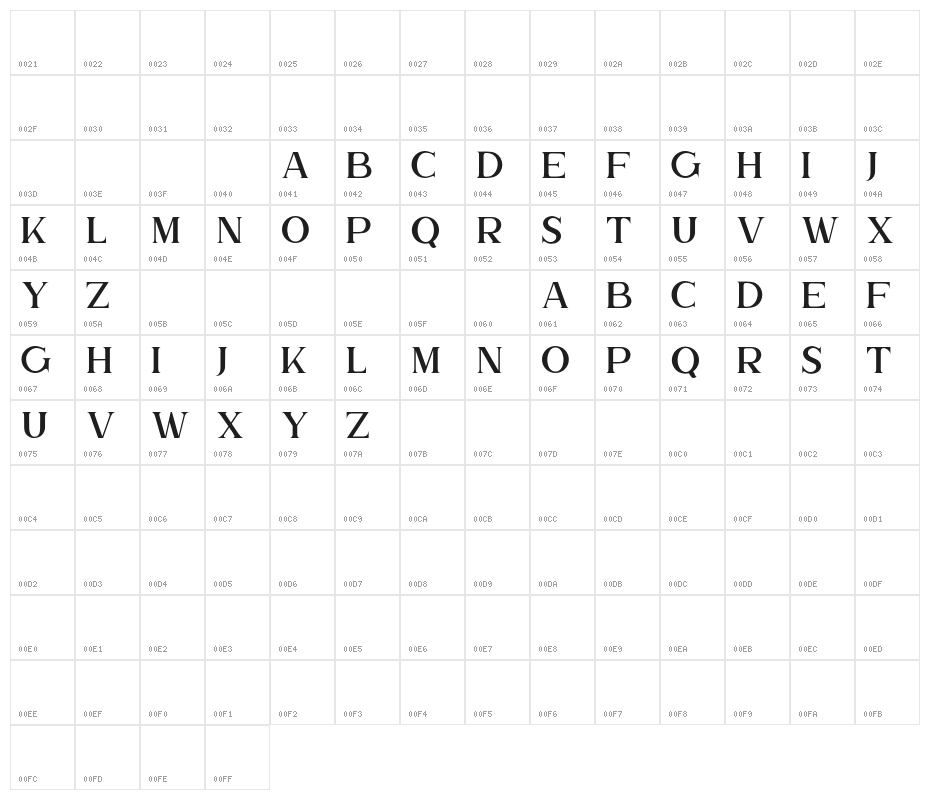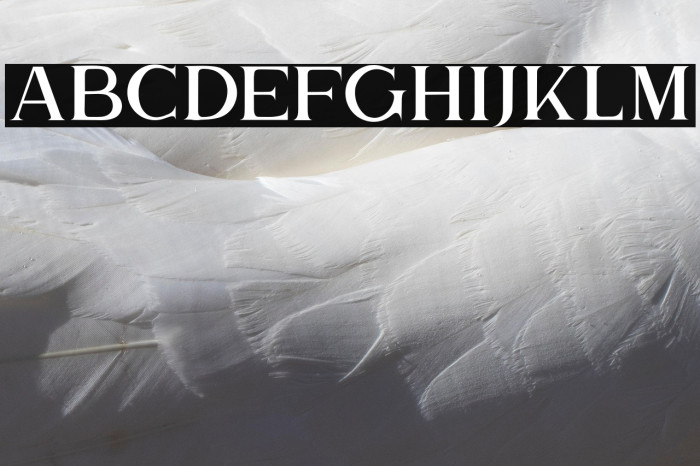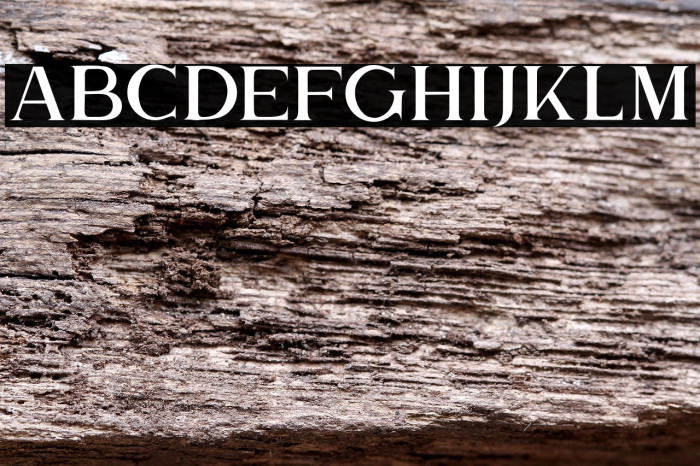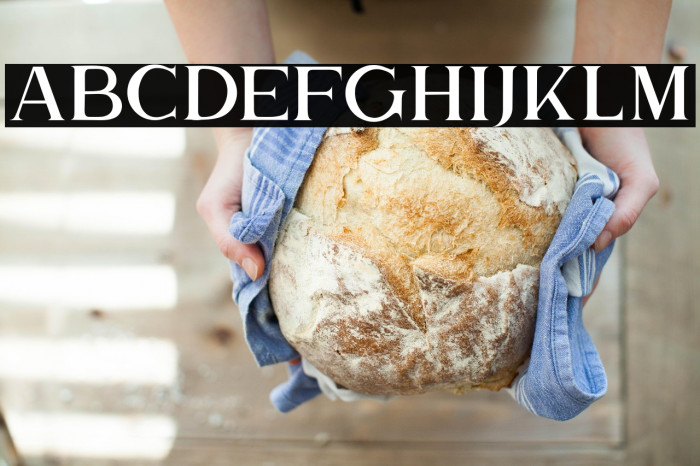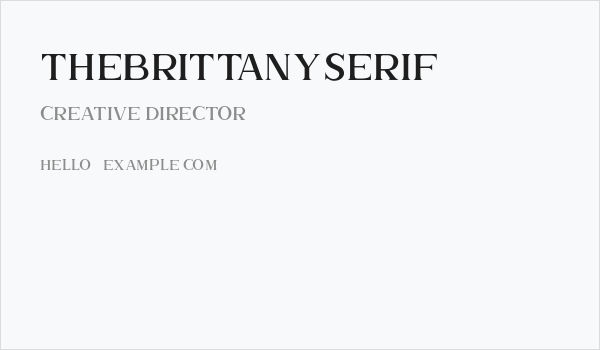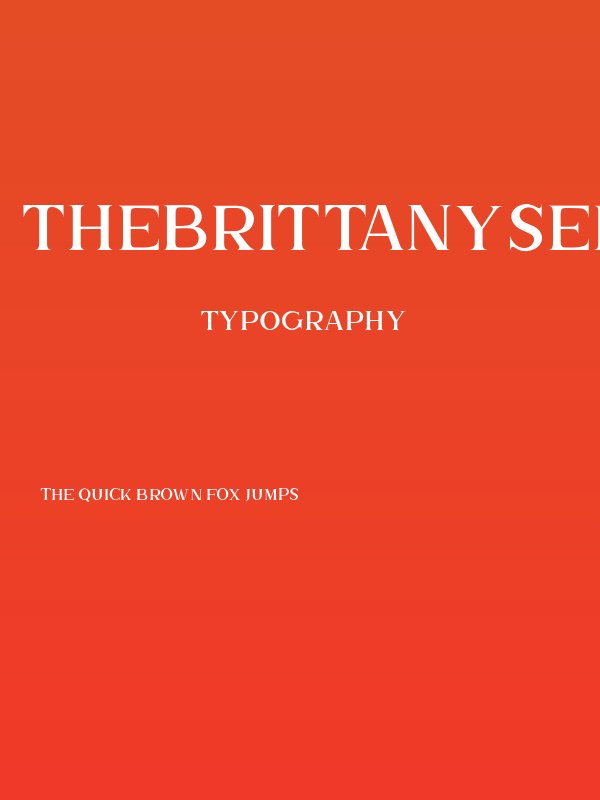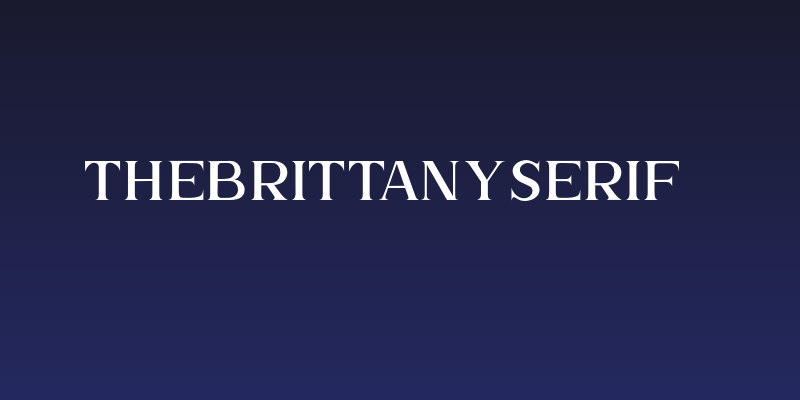
TheBrittanySerif2 Font
TheBrittanySerif2 Description
This font features a classic serif style with elegant, sharp serifs that give it a sophisticated and timeless appearance. The characters are well-proportioned, with a slight contrast in stroke thickness that adds to its readability and charm. The uppercase letters are bold and commanding, while the lowercase letters maintain a consistent style that complements the overall design. The font's structure is clean and precise, making it suitable for a variety of formal and professional applications.
| Proposed Projects | Ideal for book covers, formal invitations, branding, and editorial design. |